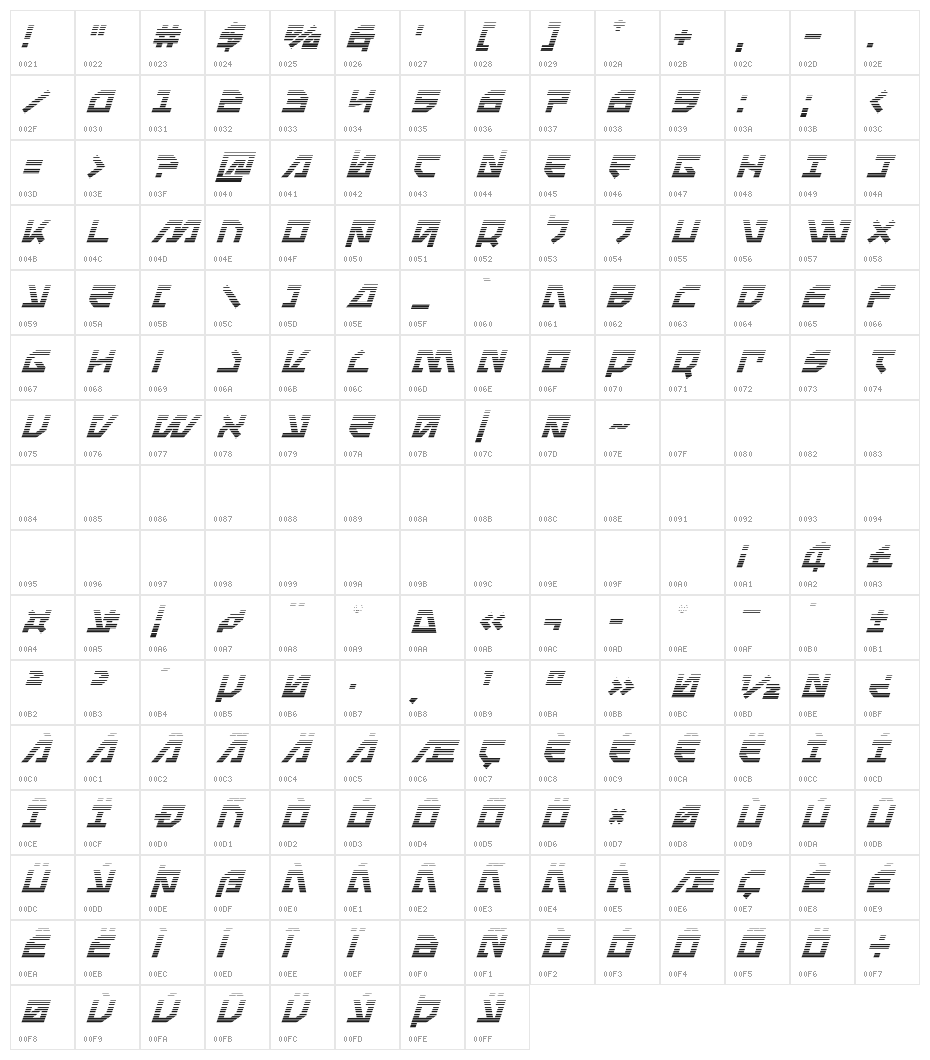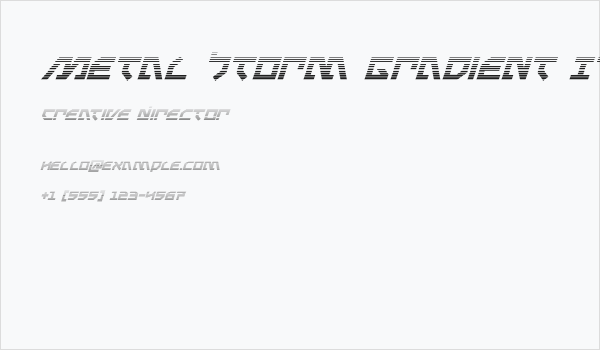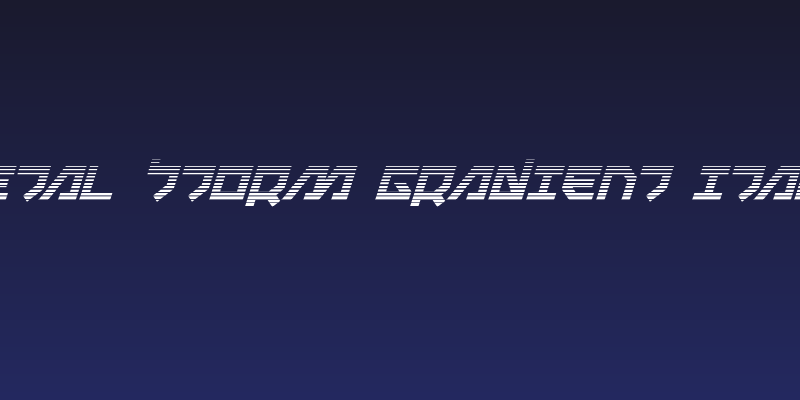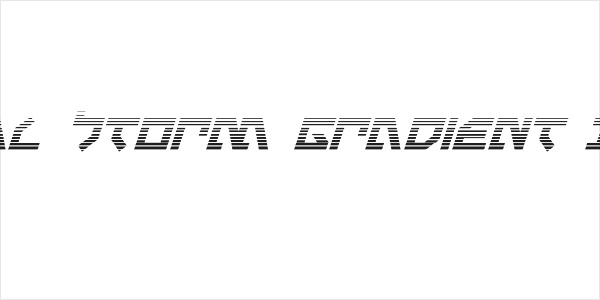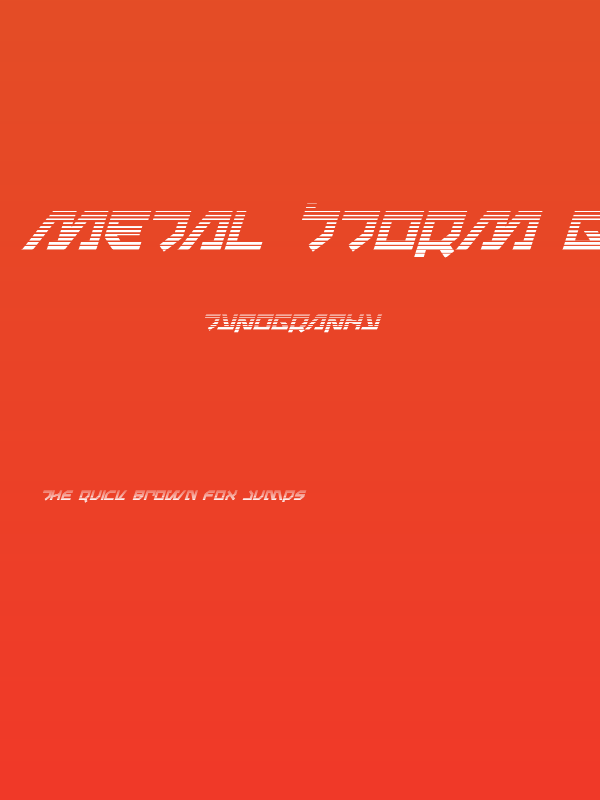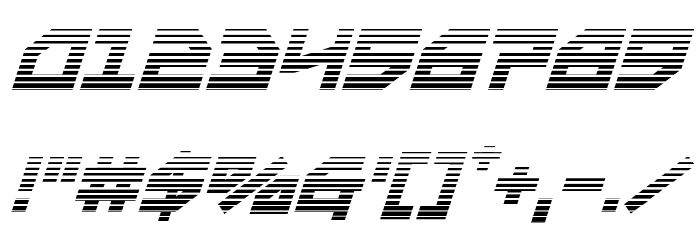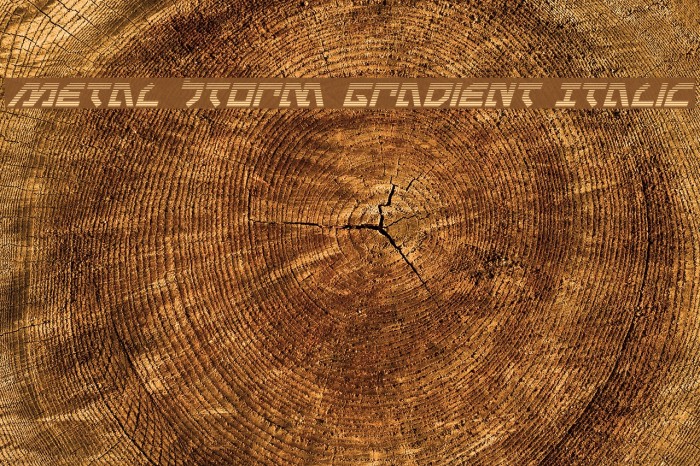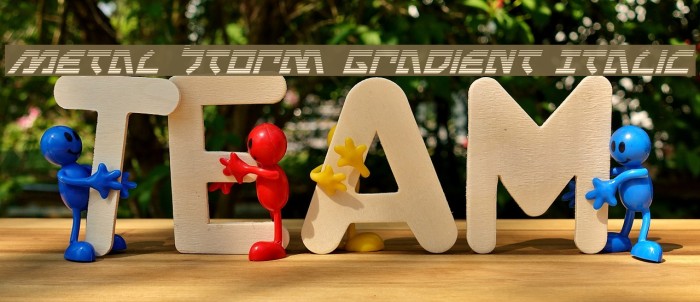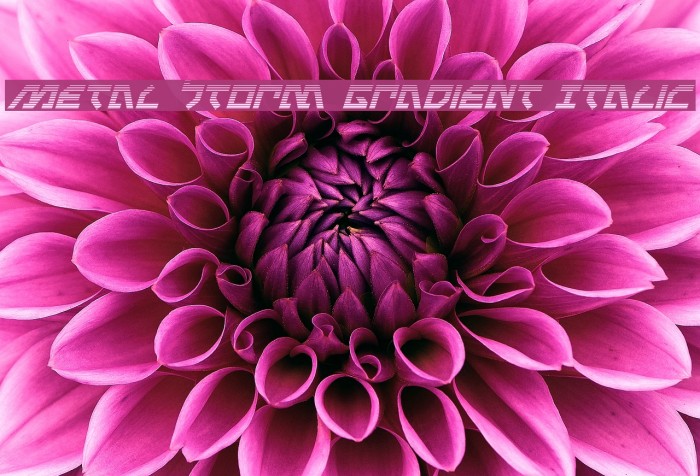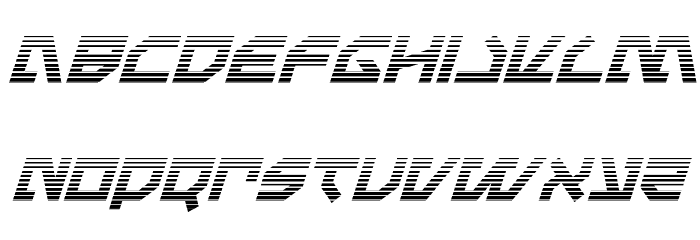
Metal Storm Gradient Italic Font
This font features a bold, futuristic design with a distinct gradient effect created by horizontal lines running through each character. The italicized style adds a dynamic and forward-leaning appearance, enhancing its modern and edgy aesthetic. The characters are constructed with sharp angles and geometric shapes, giving it a mechanical and industrial feel. The uppercase and lowercase letters maintain a consistent style, while the numbers and special characters complement the overall design. This font is ideal for projects that require a strong, impactful visual presence.
| Overall Style | Futuristic, Edgy |
| Proposed Projects | Ideal for sci-fi themed designs, video game titles, tech branding, and futuristic posters. |